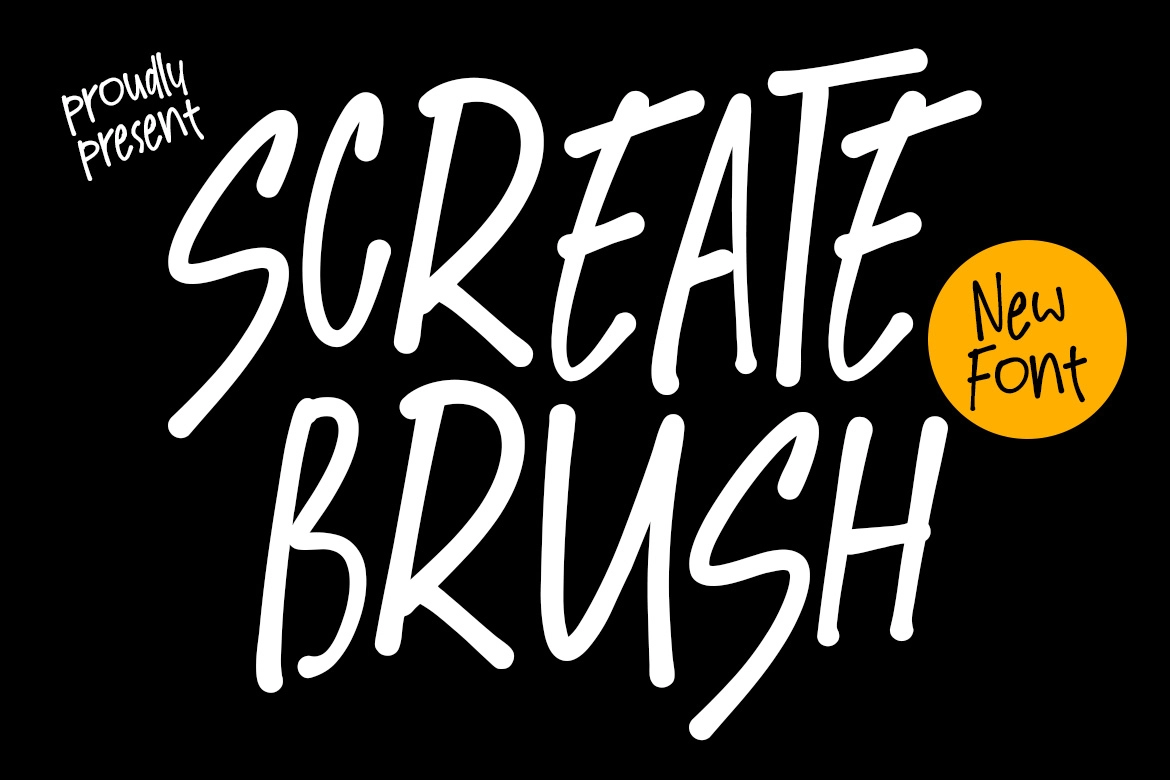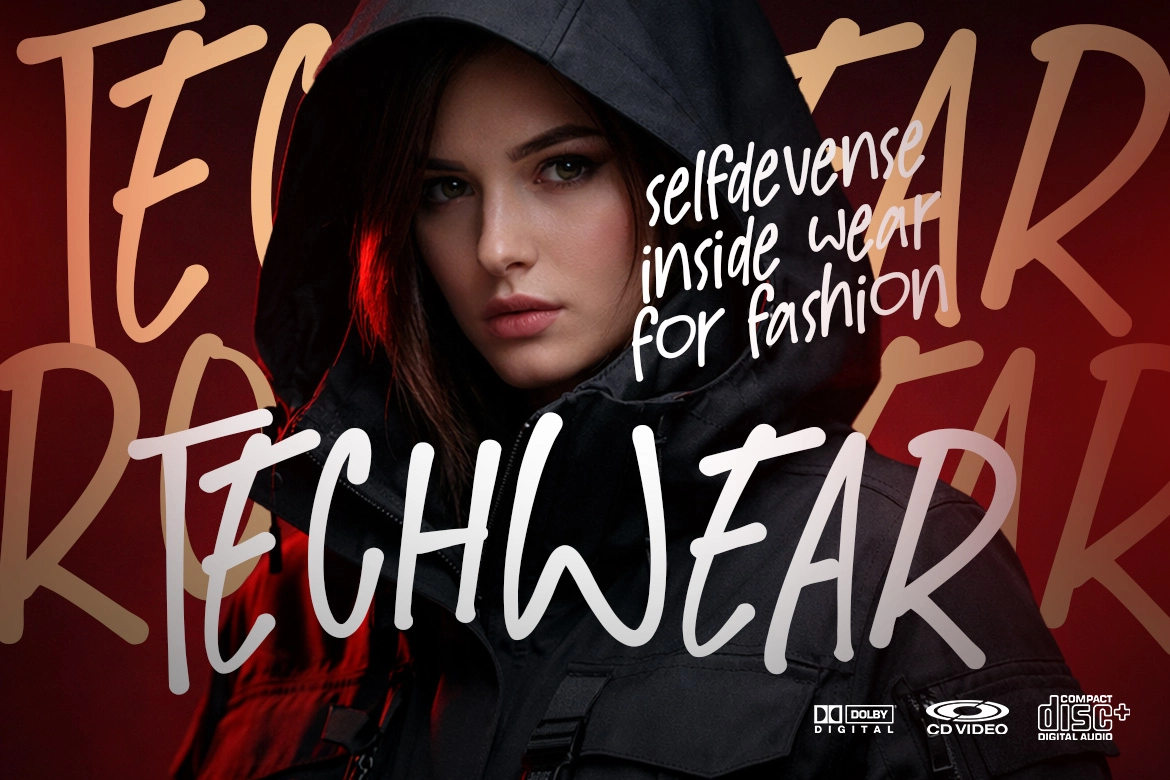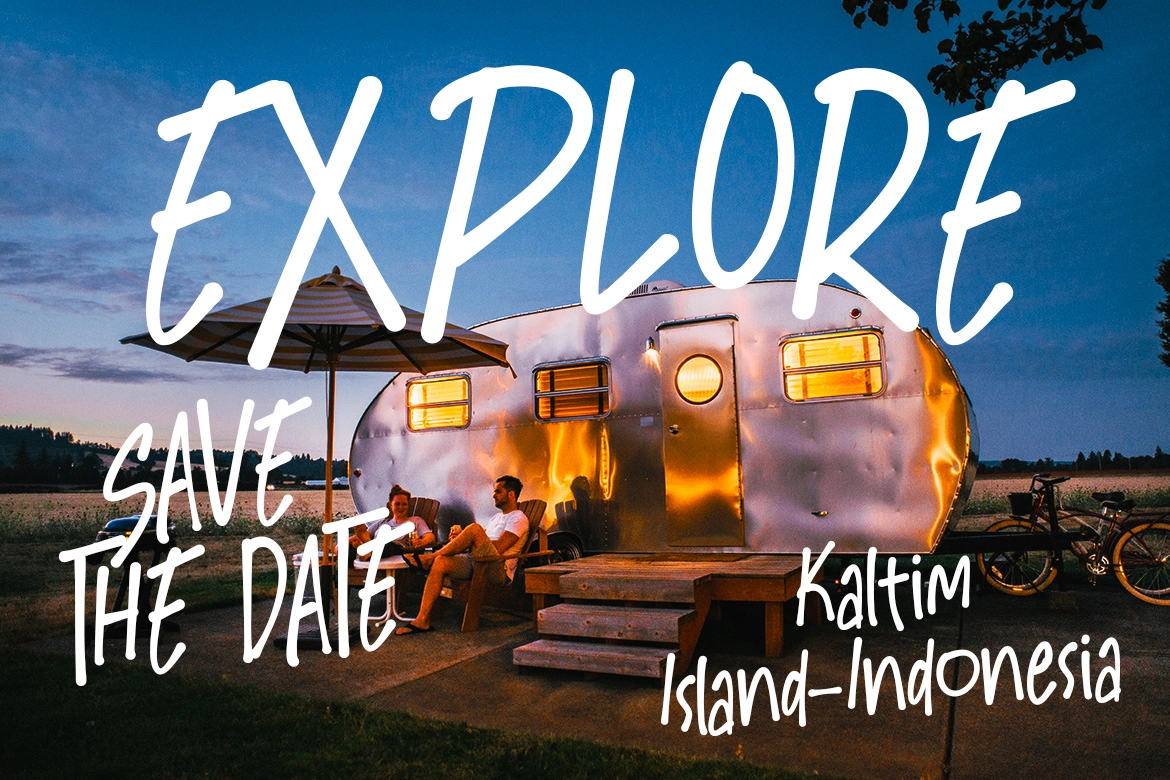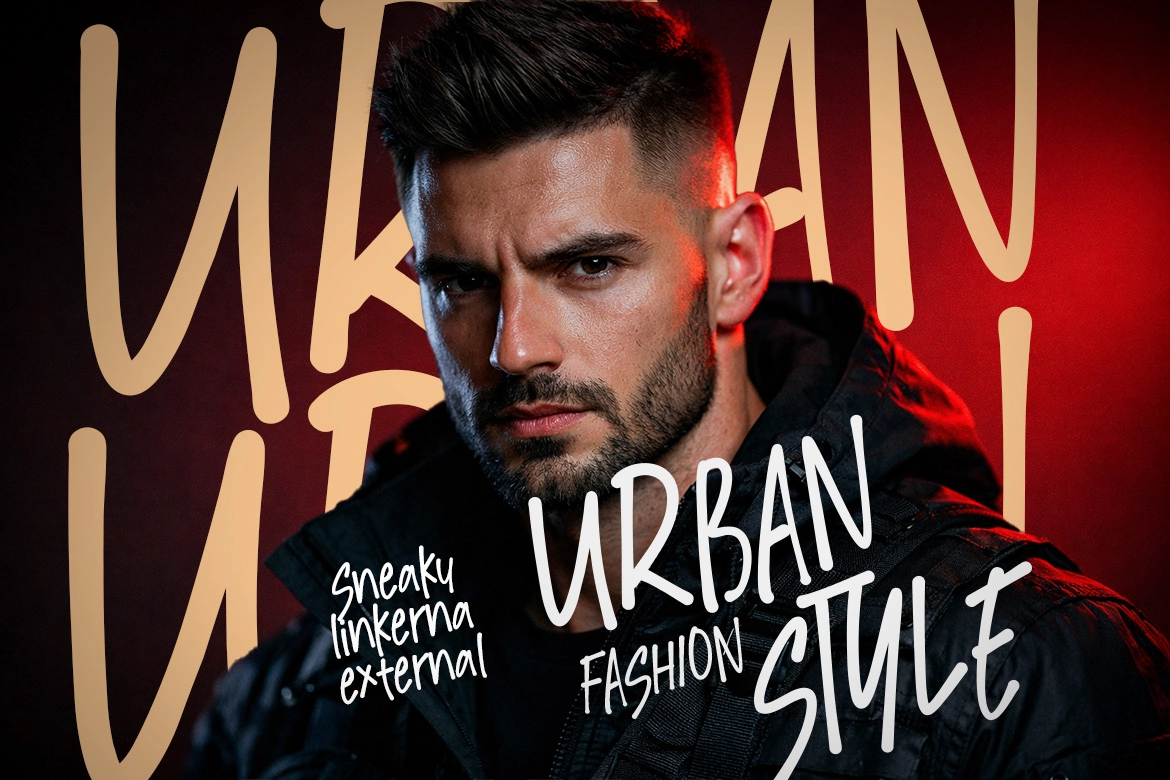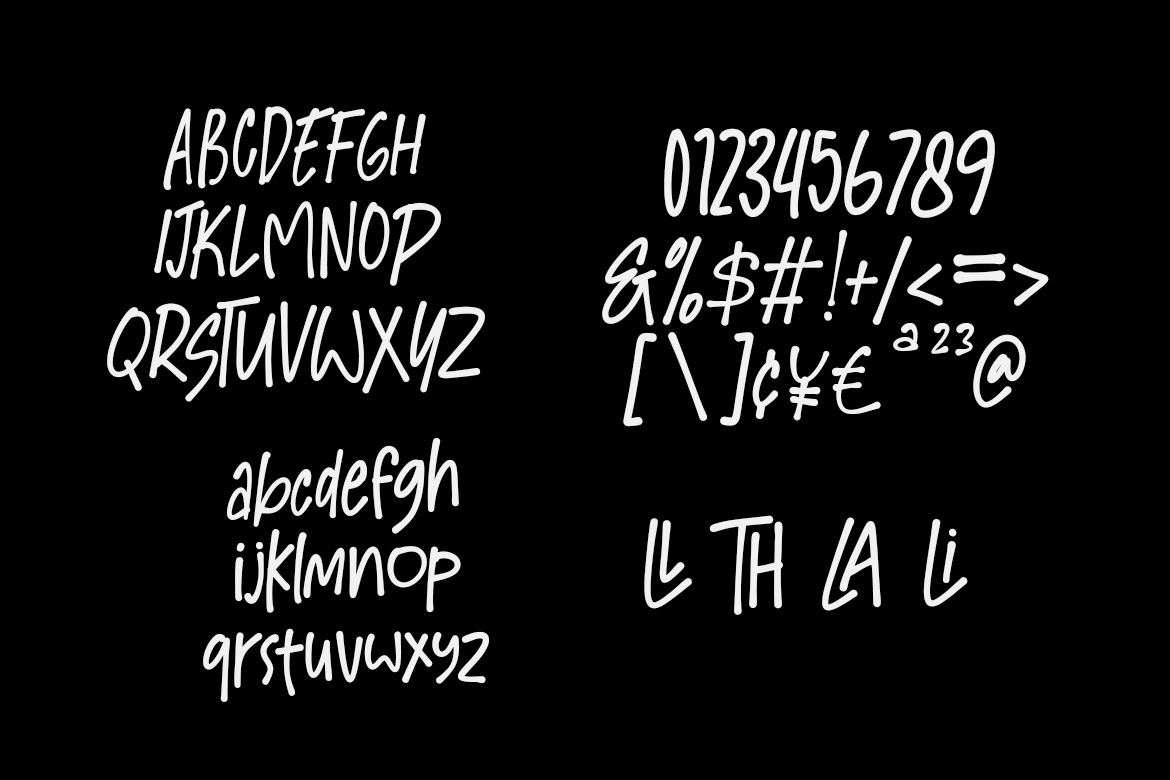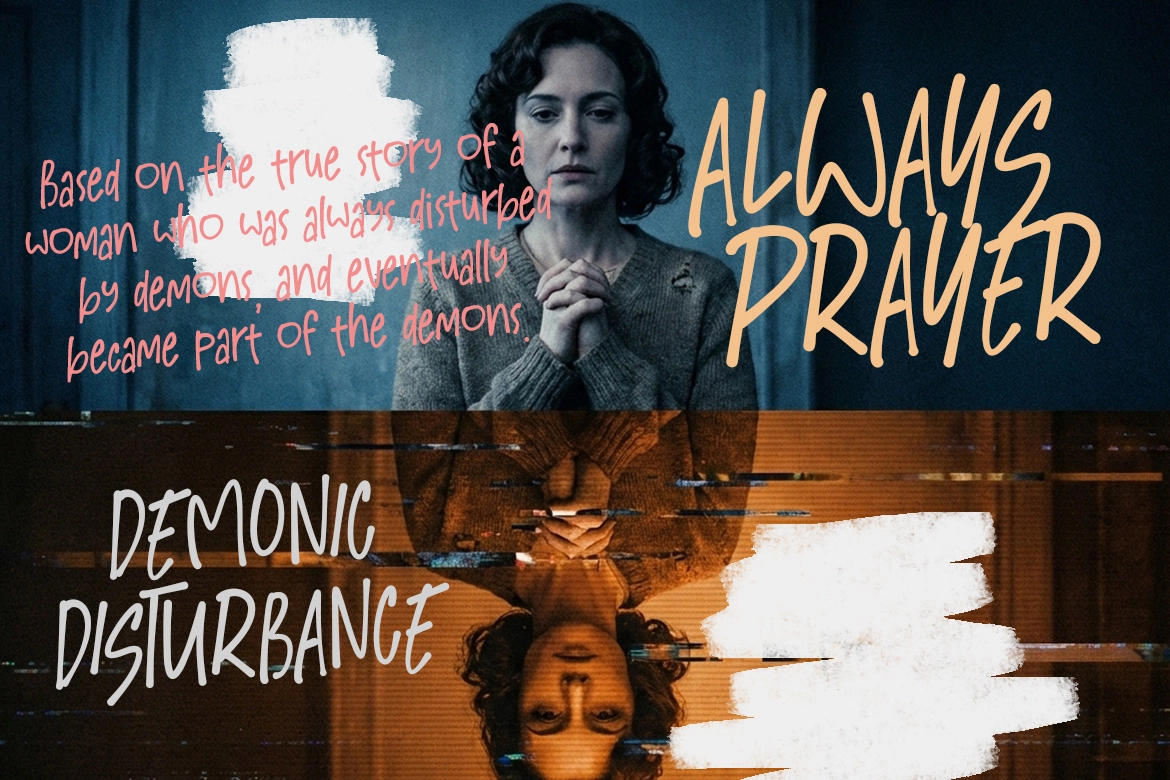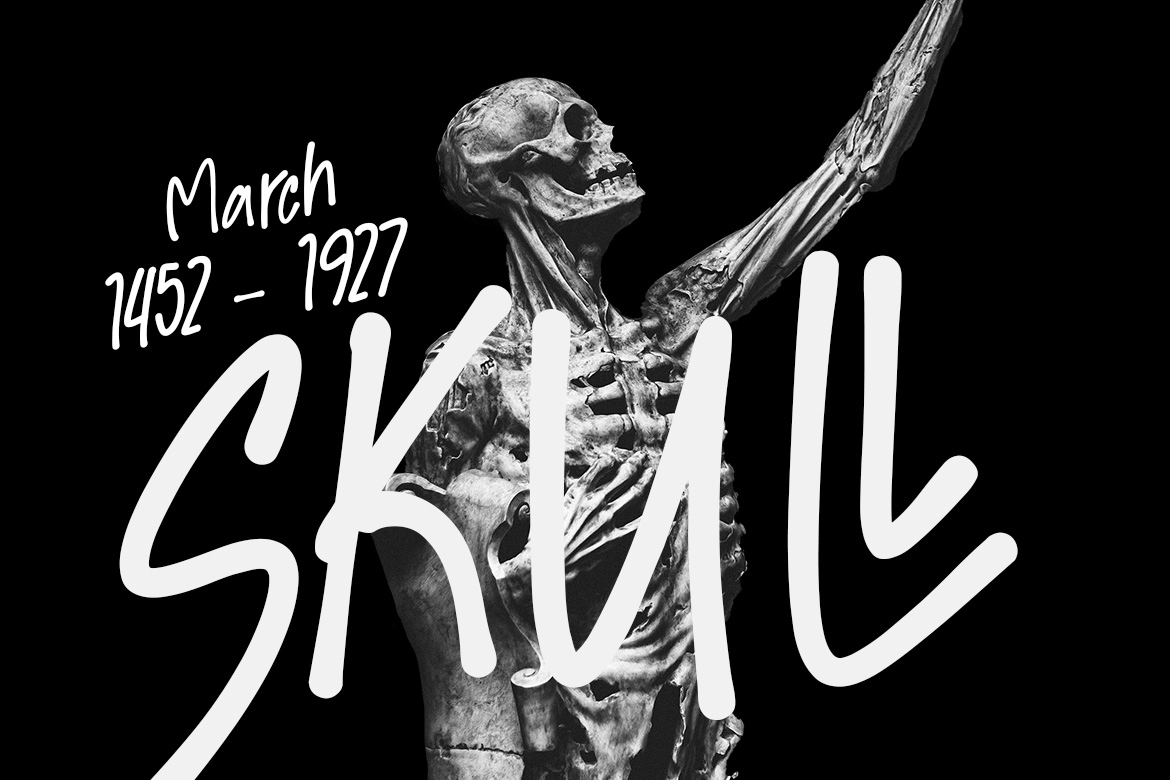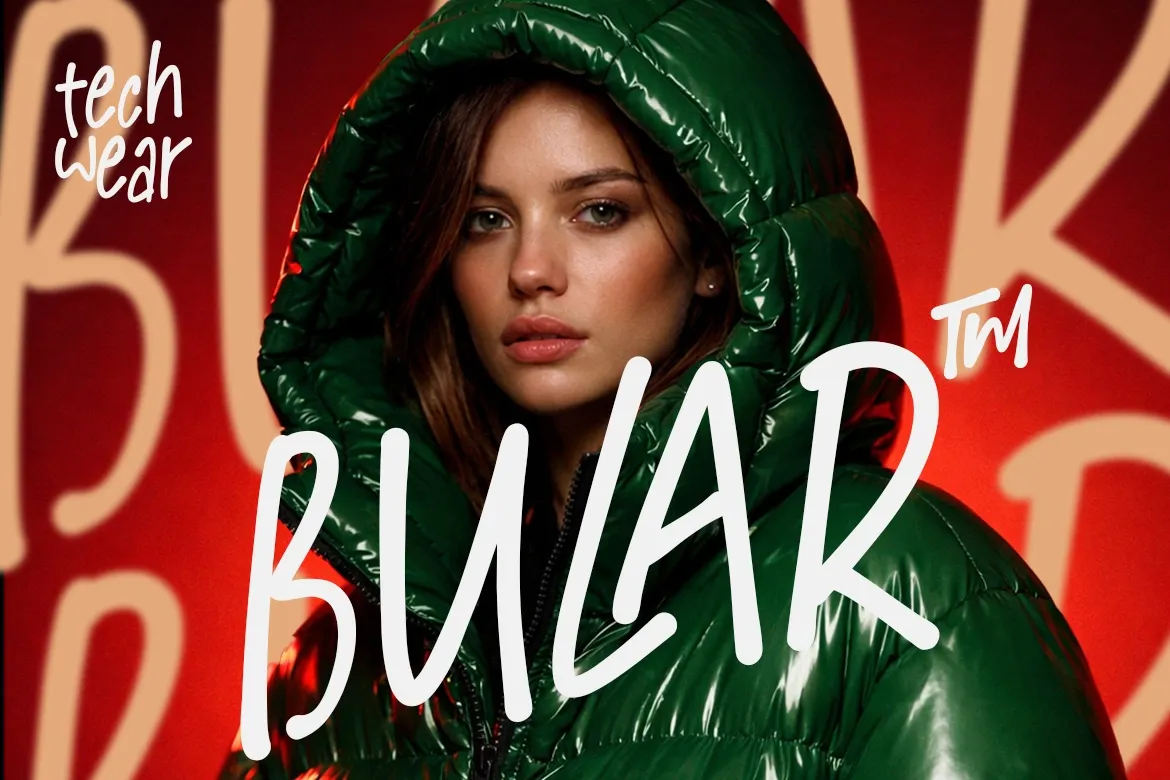
Screate Brush - Handwritten Brush Marker Font
Screate Brush
Screate Brush - Handwritten Brush Marker Font is a dynamic handwritten typeface defined by fluid, marker-like strokes and organic terminals. Its natural flow and expressive character create an authentic, hand-crafted feel that brings energy and personality to your designs.
Perfect for branding, posters, social media, and creative projects, Screate Brush delivers a bold yet friendly visual style, combining spontaneity with readability for a strong and versatile typographic presence.